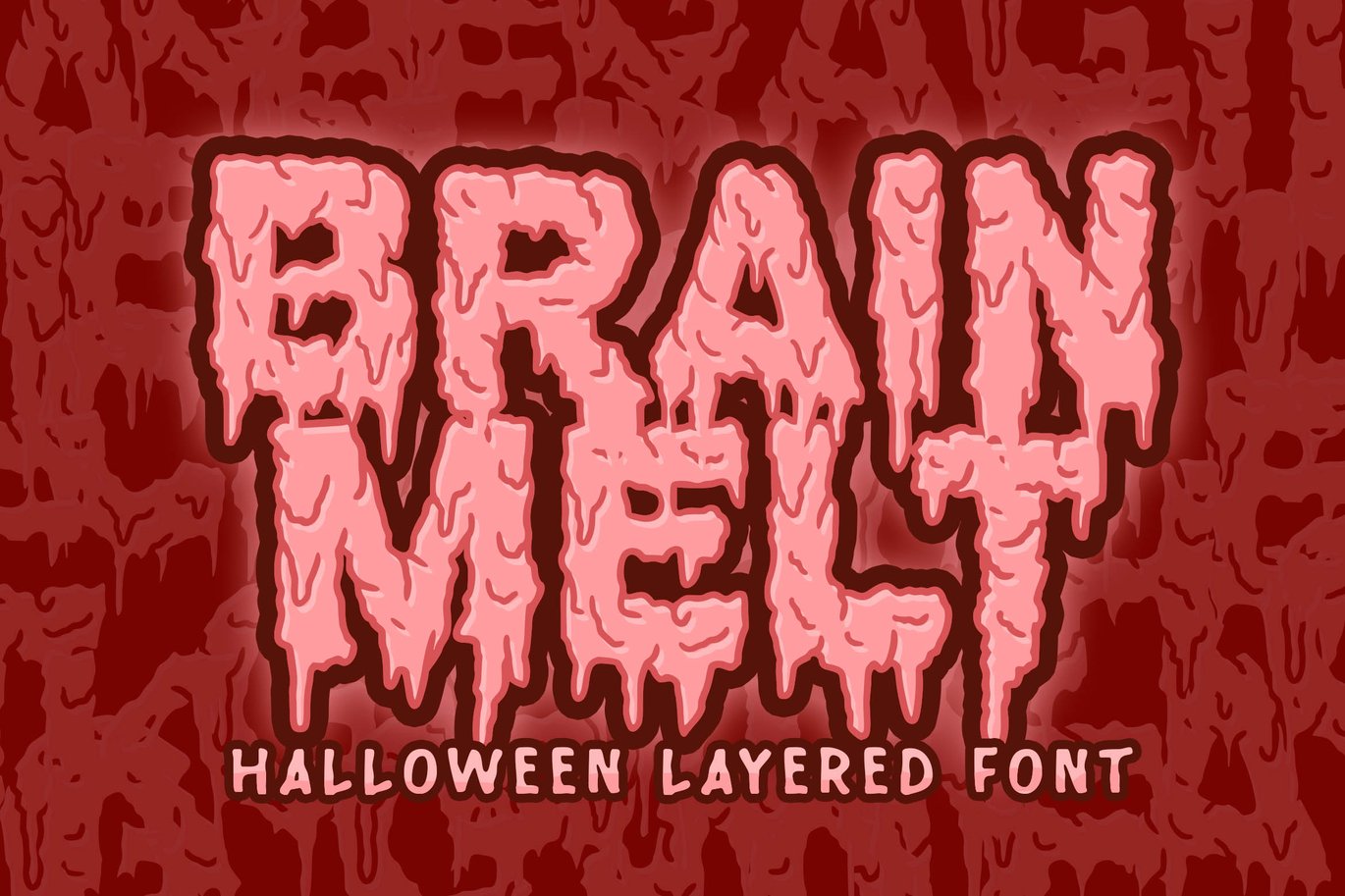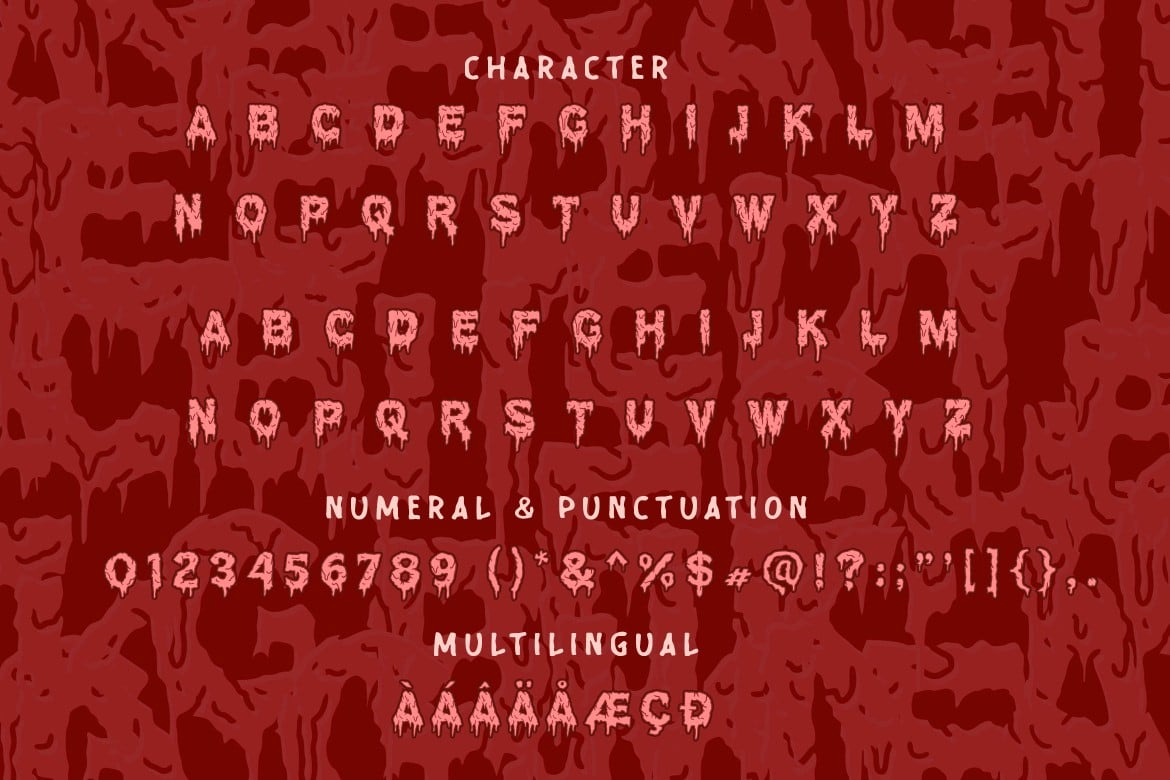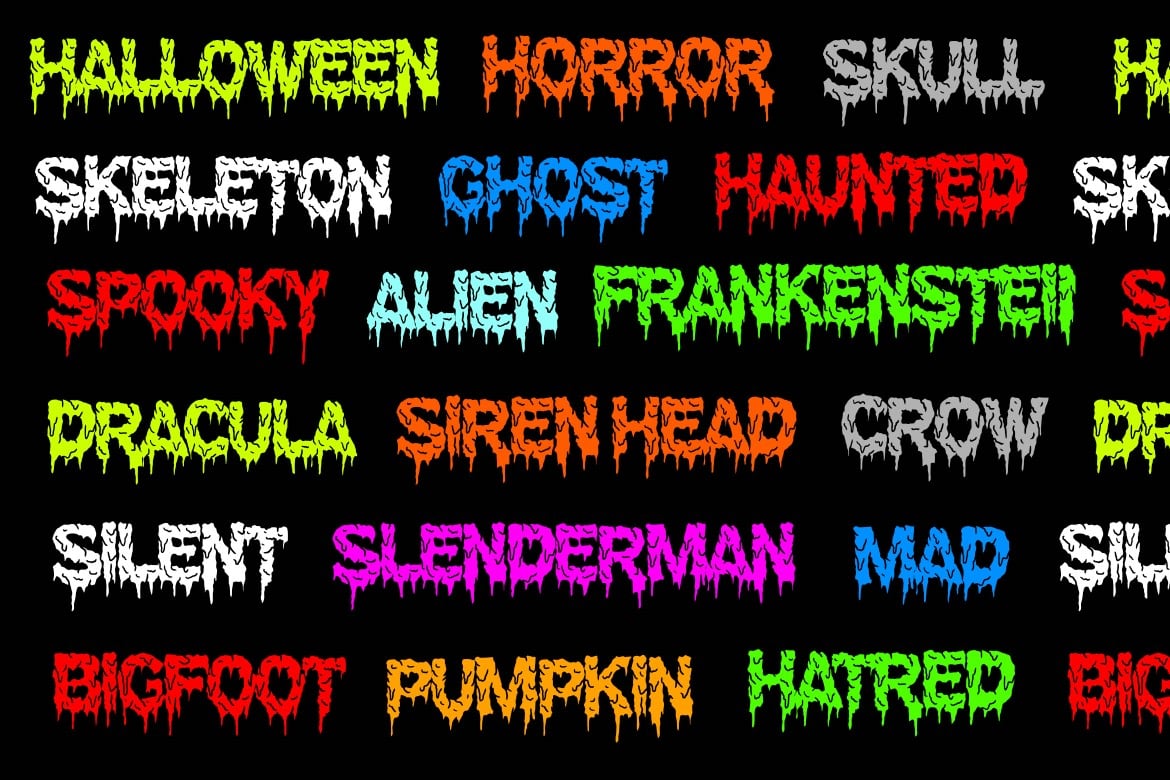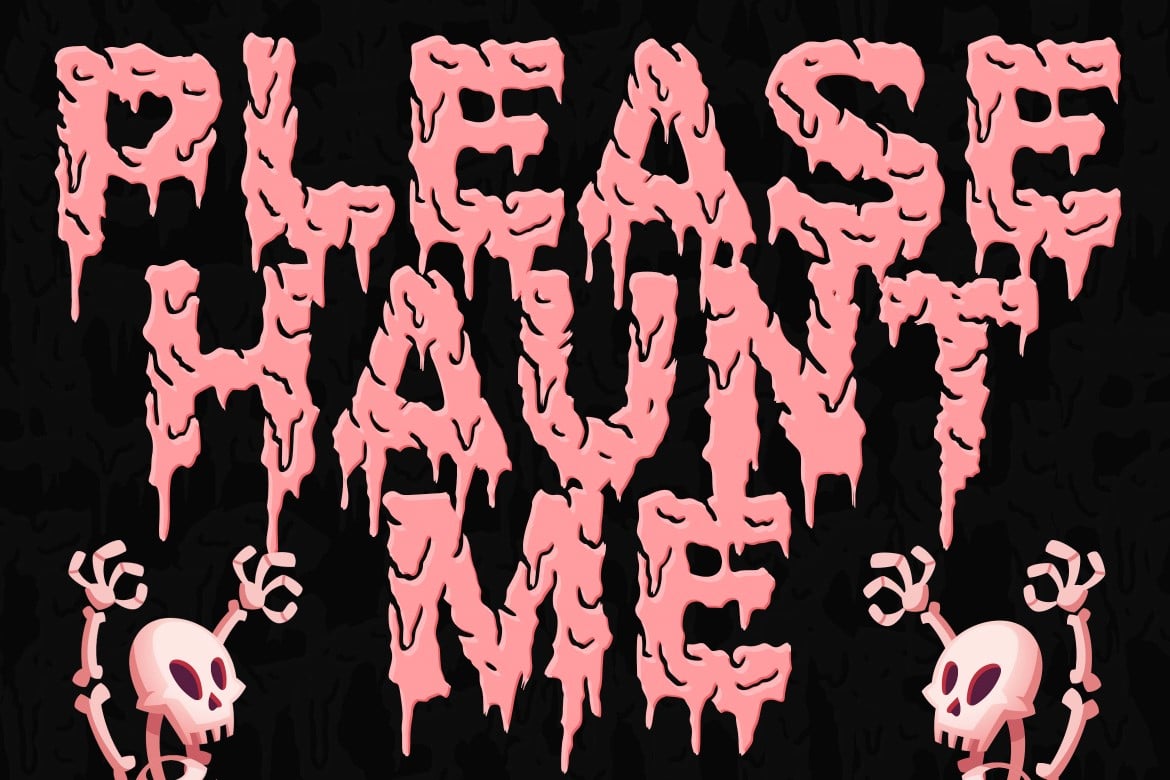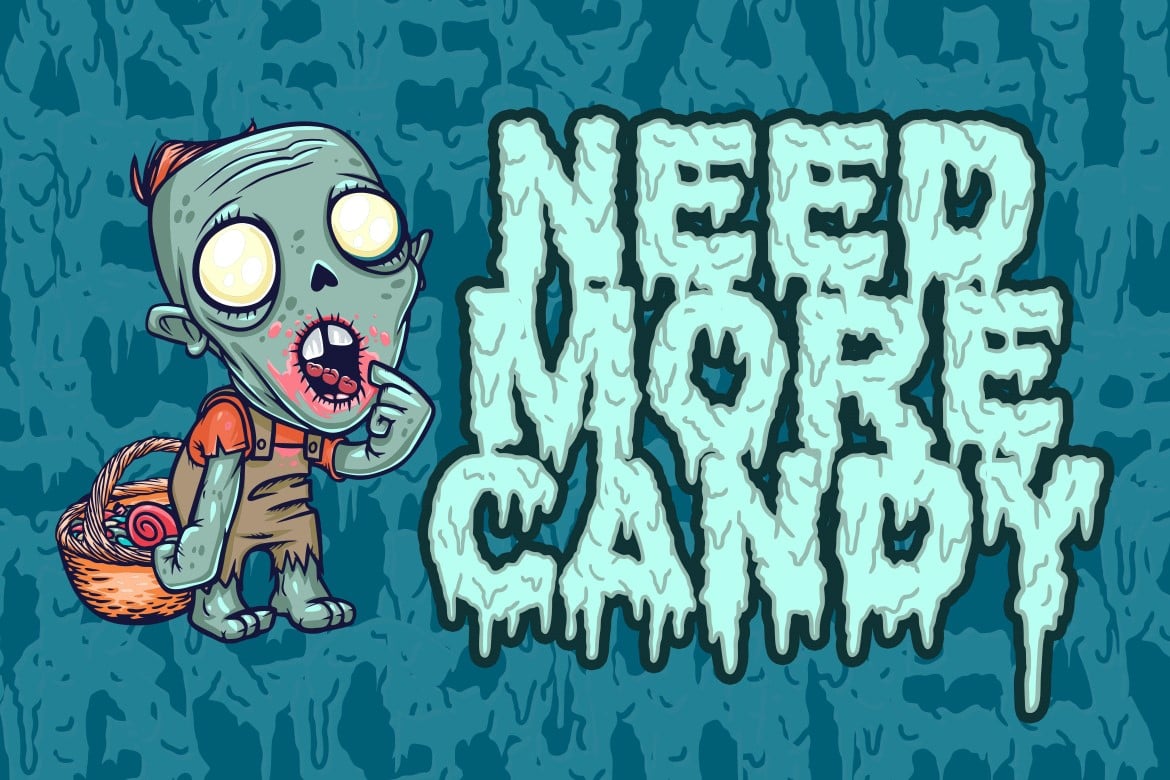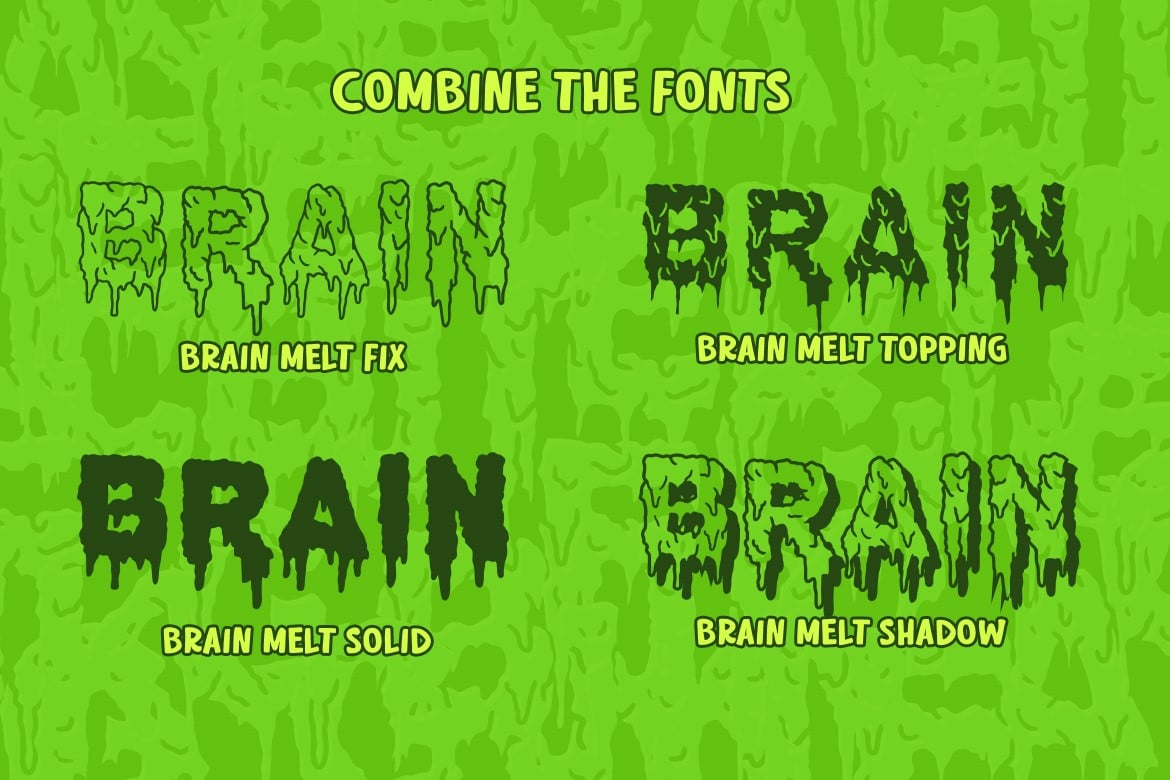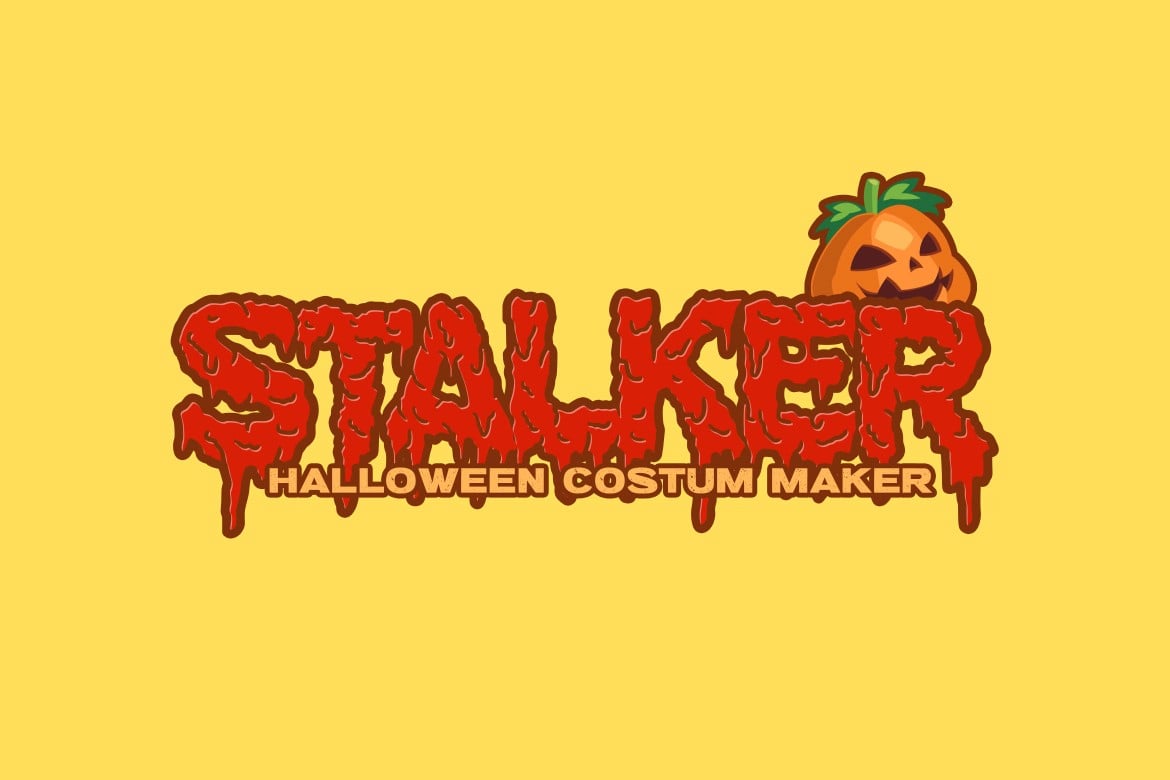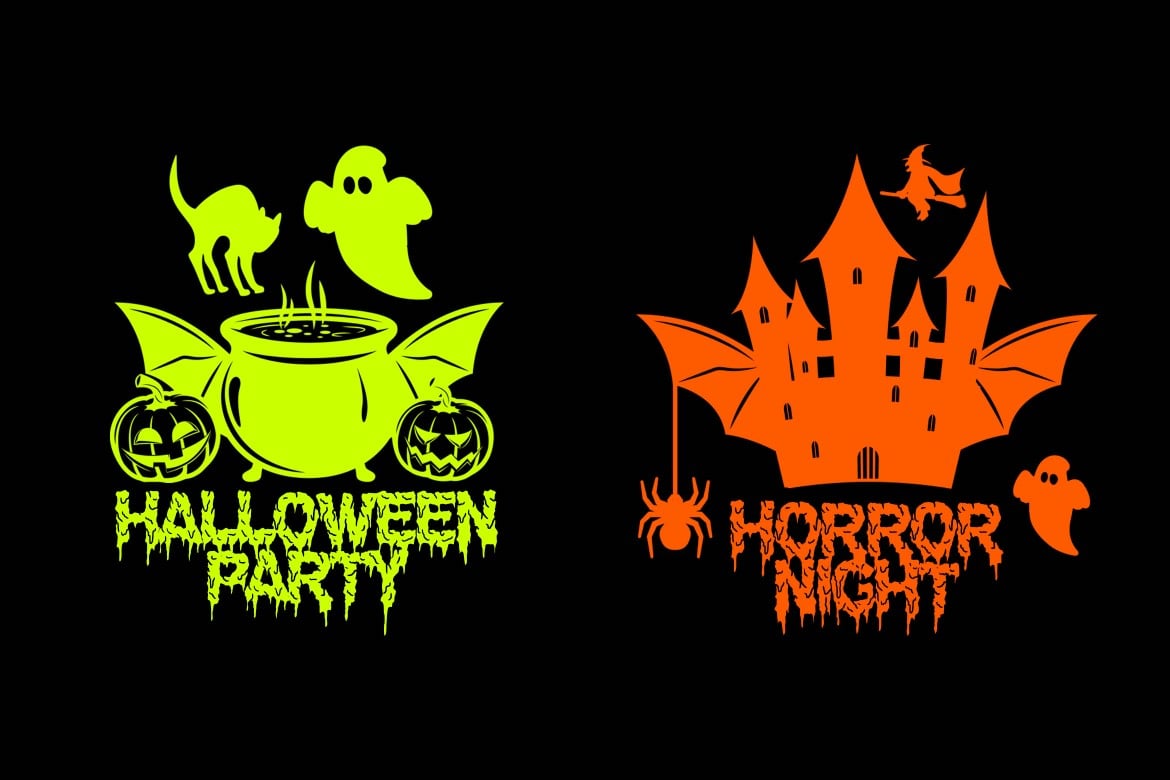
Brain Melt Halloween Font
Brain Melt is our most serious project to face halloween event.
Contains 4 fonts, perfect for any horror project like halloween, halloween poster, horror logo, and many others.
- Multilingual Support : ÀÁÂÃÄÅÇÐÈÉÊËÌÍÎÏÑØÒÓÔÕÖÙÜÚÛÝŸỲŸÆŒßÞþ